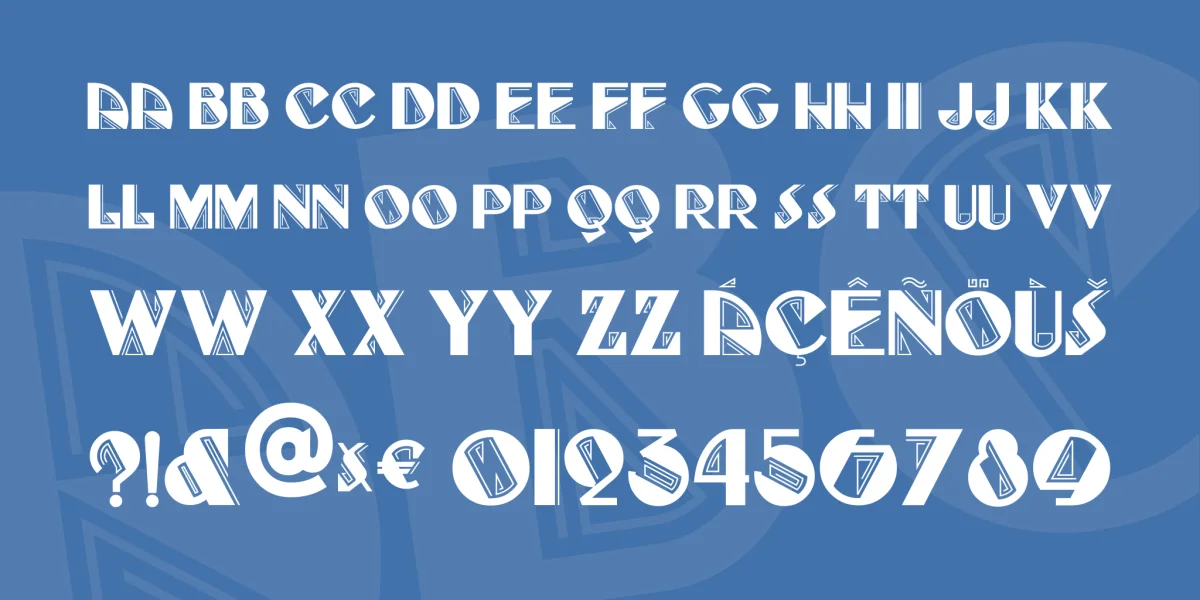
That French fabricator of frantic fonts, A. Bardi, strikes again! Another offering from Les Éditions Guérinet, originally entitled L’Obtuse, this font rocks and rolls and parties all night long. Best used sparingly, but with gusto.